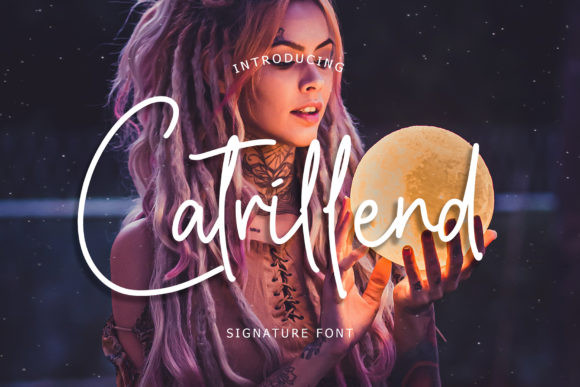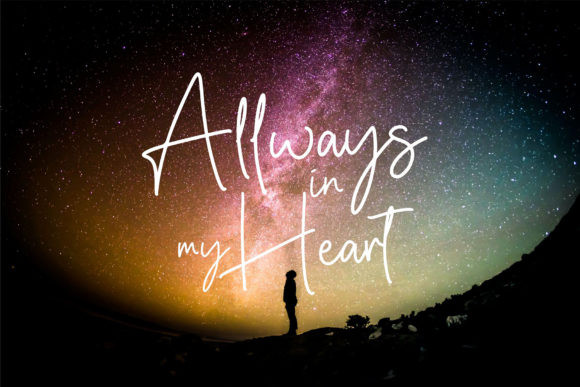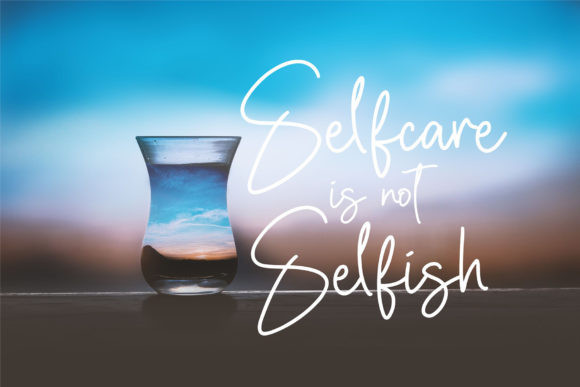
Catrillend Font
Catrillend is a relaxed and trendy handwritten font. It looks stunning on invitations, cards, quotes, greeting cards, logos, business cards and every other design which needs a personalized touch.